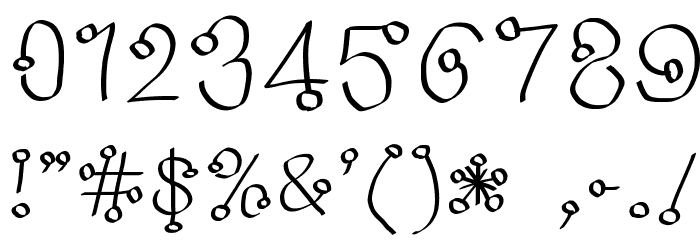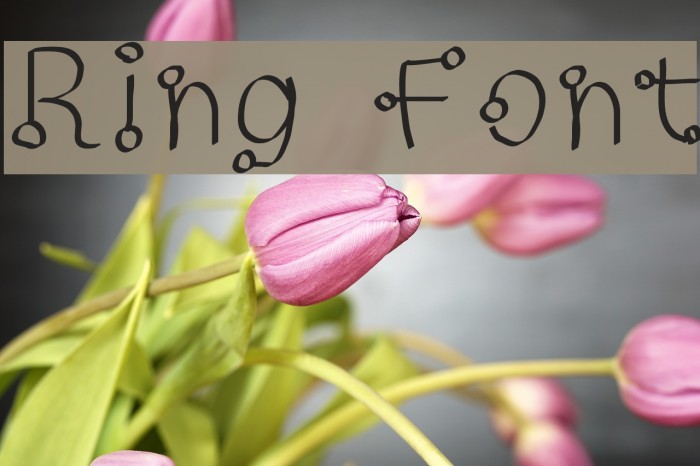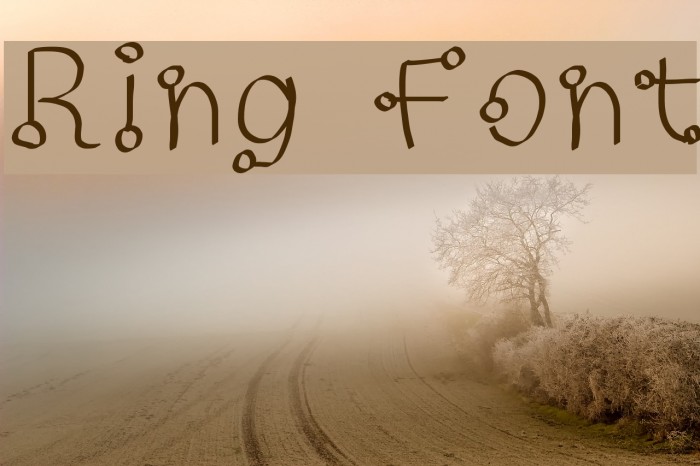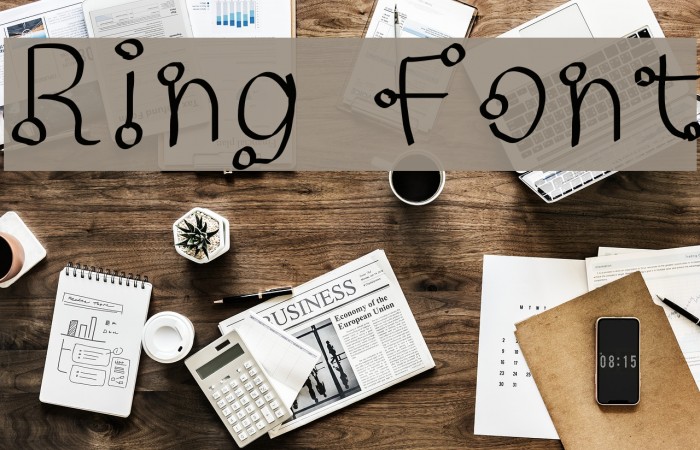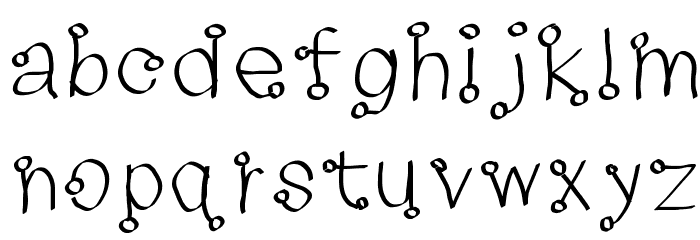
Ring Font
This playful and whimsical font features a unique design where each character is adorned with circular accents at the ends of strokes, resembling small rings. The letters are slightly irregular, giving them a hand-drawn appearance that adds to their charm. The uppercase and lowercase characters maintain a consistent style, with rounded edges and a casual, friendly vibe. Numbers and special characters follow the same design principles, ensuring a cohesive look across all elements. This font's distinct style makes it stand out, offering a creative and artistic touch to any project.
A playful, hand-drawn font with circular accents on each character.
• Proposed Projects: Ideal for children's books, creative posters, playful branding, and artistic invitations.
• Category: Decorative/Display
• Contrast: Low
• Overall Style: Whimsical
• Use Case: Headlines, Logos, Creative Projects